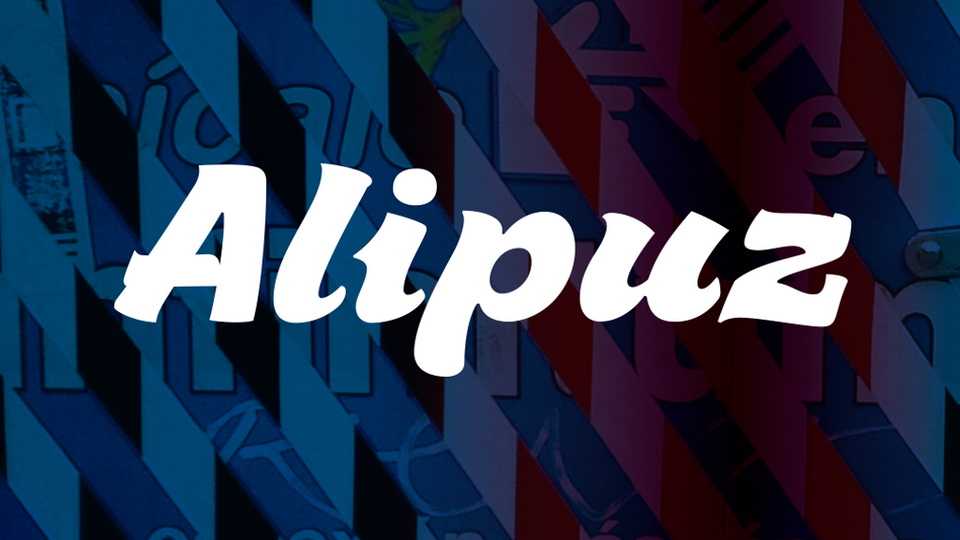
Download Alipuz font, a bold hand lettered font which arise from the stroke of the signer or street painter, in which his spontaneous work artistic is enchanting in urban advertising.